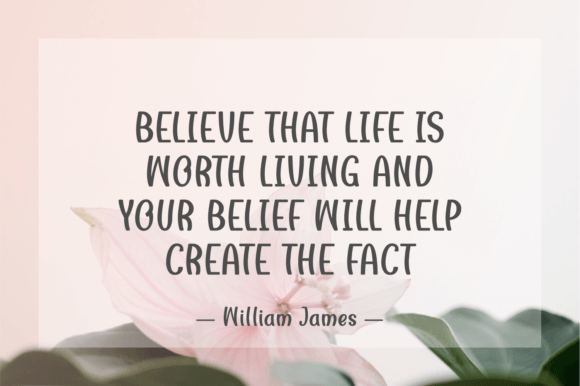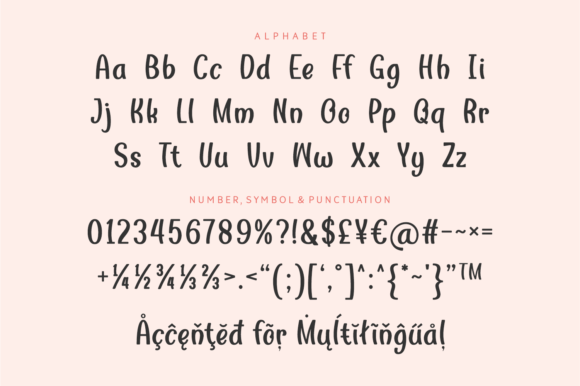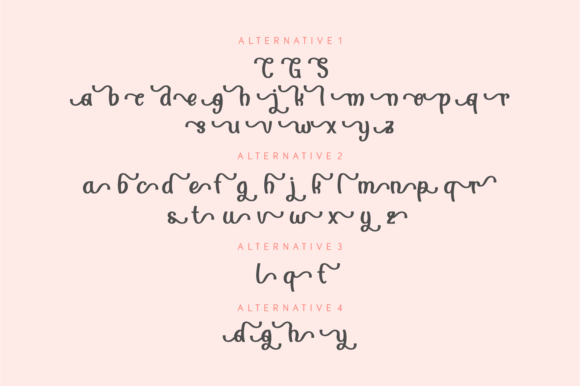
Introduction to Karya Font
Have you ever been working on a creative project, pouring your heart and soul into it, only to realize that the right font is missing? The one that would bring your idea to life and make it truly pop? If so, you’re not alone. As designers, we’ve all been there. But what if I told you that there’s a font that can change all that? Say hello to the Karya Font, a playful and eye-catching display font that’s sure to add a fun and lively touch to any project.
As a valuable resource for designers, Karya Font is perfect for branding, advertising, and any project that needs a font that stands out from the crowd. With its bold and colorful design, it’s guaranteed to grab attention and make your creative project shine. Plus, with a transparent background and high-quality design, you can use it on any project, from digital to print, with confidence.
Key Features of Karya Font
- High-quality design resource with a unique, modern aesthetic, ideal for creative projects.
- Features a transparent background, making it perfect for overlaying on images or videos.
- Comes in a single font weight, with a resolution of 300 DPI, ensuring crisp and clear display on various devices.
- Designed to be highly legible, even at small font sizes, making it perfect for titles, headings, and body text.
Honest Review: Karya Font
As a designer, I’m always on the lookout for high-quality design resources to elevate my creative projects. Recently, I had the chance to try out the Karya Font, and I must say, it’s been a game-changer.
What works well: ✨ The Karya Font is incredibly versatile, making it perfect for a wide range of creative projects. I love how it can be used for both modern and traditional designs, thanks to its clean and elegant lines. Plus, the font is available for free download, which is always a bonus!
- High-quality design: The Karya Font is designed with precision, ensuring that it looks stunning on both digital and printed materials.
- Transparent background: This feature allows designers to easily customize their designs and make them more visually appealing.
However, I do have to mention a few limitations: ⚠️ The font is only available in a few weights, which might limit its usage in more complex designs. Additionally, the font might not be suitable for projects that require a lot of bold typography.
Overall, I’m really impressed with the Karya Font, and I’d definitely recommend it to fellow designers. Its high quality, versatility, and free download make it an excellent design resource for any creative project.
Karya Font is ideal for creative projects, such as graphic design, digital art, or even print materials. With its high-quality design, it’s perfect for designers who want to create unique and eye-catching content.
To get the most out of Karya Font, experiment with different font sizes, colors, and combinations. You can also use it with a transparent background to create a clean and modern look.
Q: What makes Karya Font a high-quality design resource?
Karya Font is a high-quality design resource due to its high-resolution design, precise typography, and extensive character set. It’s been carefully crafted to provide a professional and elegant look for any creative project, from logos and branding to digital products and publications.